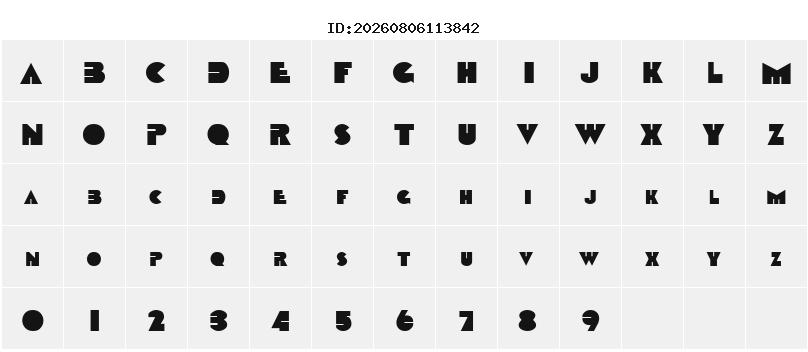
Orange Clock Preview
About Orange Clock.ttf
Orange Clock.ttf is a modern, elegant sans-serif font designed for ultimate readability and visual harmony. Perfect for branding, headlines, web design, and print materials.